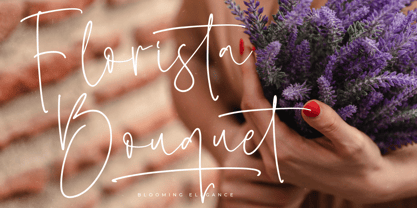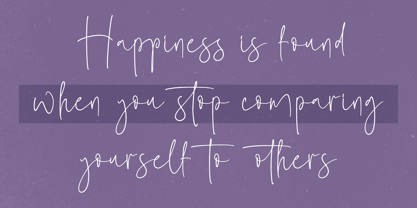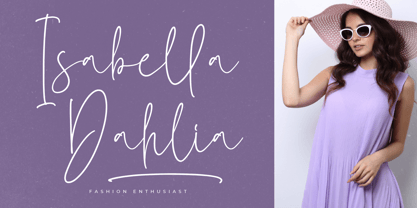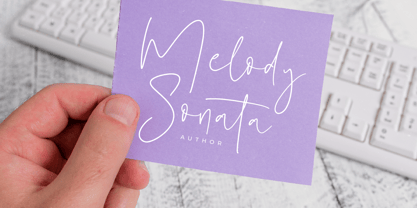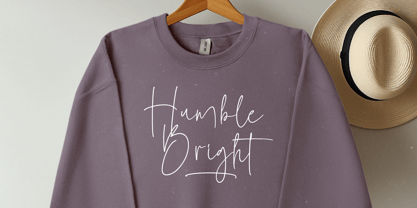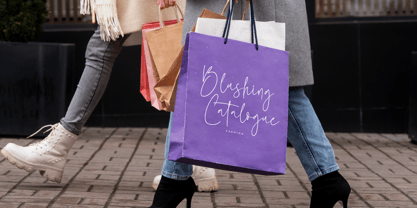
Sillento Nighters
The Sillento Nighters Font Family was designed by Heru Utama Putra and published by Letterena Studios. Sillento Nighters contains 2 styles and family package options.
Sillento Nighters is a modern and charming handwritten font that exudes elegance and personality. Its graceful, flowing strokes and sophisticated character make it perfect for upscale invitations, personal branding, and chic editorial designs. Elevate your projects with the refined allure and warmth of this font.